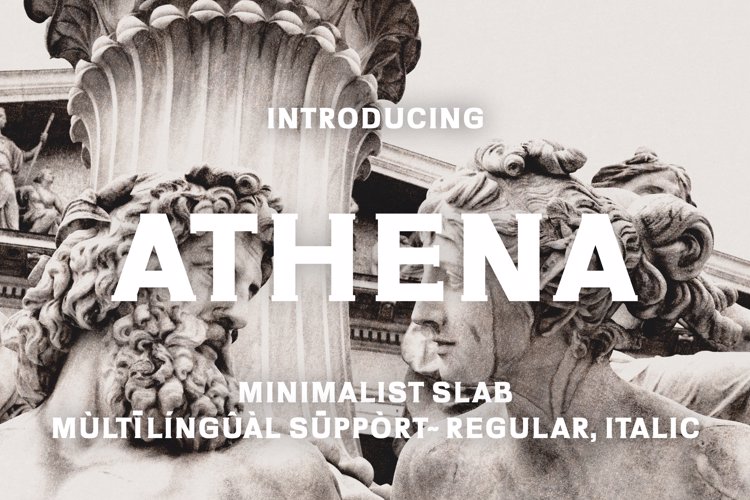
ATHENA Font
๐จ Font Name: Athena by Minimalist Art Studio
๐จ Font Description: Athena is a bold minimalist slab serif with classical elegance and multilingual supportโperfect for editorial design, premium packaging, and cultural branding.
โ Complete Latin set + multilingual diacritics
โ Alternates, stylistic sets & ligatures
โ Numbers, small caps, and extended punctuation
โ Bonus italics and family styles